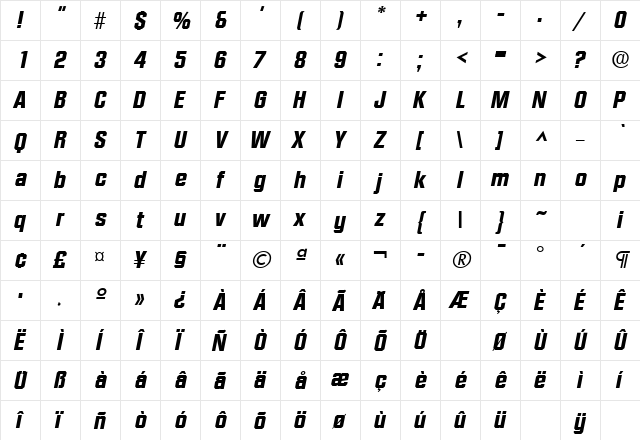
Diamante Bold Italic Font Preview
Design Context for Diamante Typeface
Diamante takes a measured approach to typography — its balanced proportions and neutral character make it a reliable workhorse for both digital and print work. The slanted form adds forward momentum and visual energy. The heavy weight commands attention and anchors typographic hierarchies.
Pro Tip: Try Diamante for annotation and caption copy alongside an upright companion — the contrast in angle creates a dynamic but ordered typographic system.